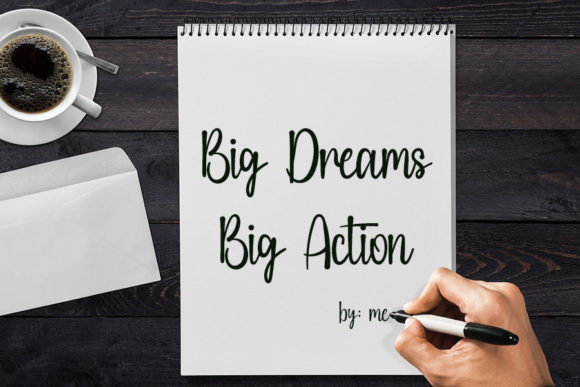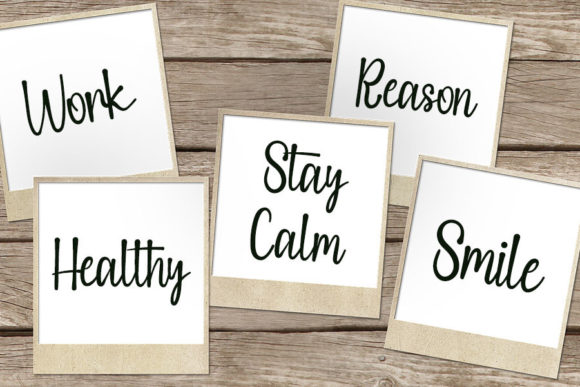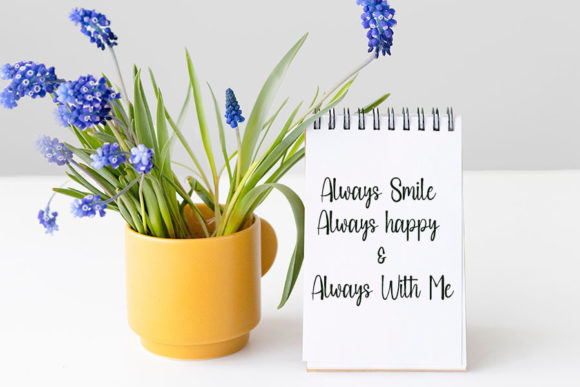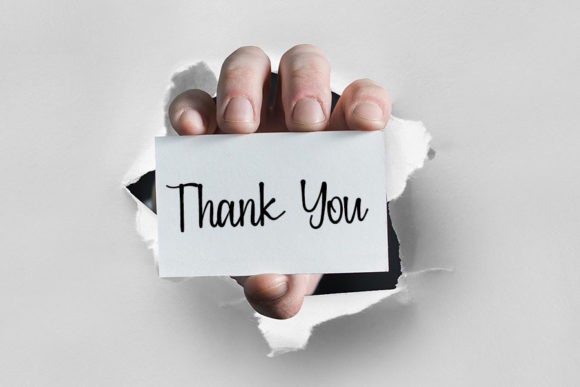
The Alliamartha Font: A Handwritten Gem for Creative Projects
I’ll never forget the struggle I faced while working on a branding project for a boutique client. The goal was to create a warm, inviting visual identity that reflected the client’s elegant and sophisticated personality. However, after hours of scouring font libraries, I just couldn’t find the perfect handwritten font that exuded both class and modernity. That was until I stumbled upon the Alliamartha font – a game-changer for designers, crafters, and creative hobbyists alike!
As I began experimenting with Alliamartha, I was immediately smitten. Here’s what makes this font a standout:
- ✨ Elegant, flowing script with a clear calligraphic influence
- ✅ Extensive OpenType features, including stylistic alternates and ligatures
- ✅ A fresh, contemporary feel that works beautifully for modern designs
While Alliamartha is an exceptional font, it’s not without its minor quirks:
- ⚠️ Some users might find the font’s elegance and sophistication limiting for very casual or playful projects
- 🤔 Occasional inconsistencies in kerning, particularly with certain numeral combinations
The Story Behind Alliamartha
Alliamartha was designed by a talented typographer who drew inspiration from traditional calligraphy and modern digital design. The goal was to create a font that would seamlessly blend elegance with a fresh, contemporary feel. With its intricate details and flowing script, Alliamartha is the perfect choice for designers seeking a sophisticated, high-end look.
| What makes Alliamartha unique? | Alliamartha’s unique blend of classic calligraphic influences and modern digital design elements sets it apart from other handwritten fonts. |